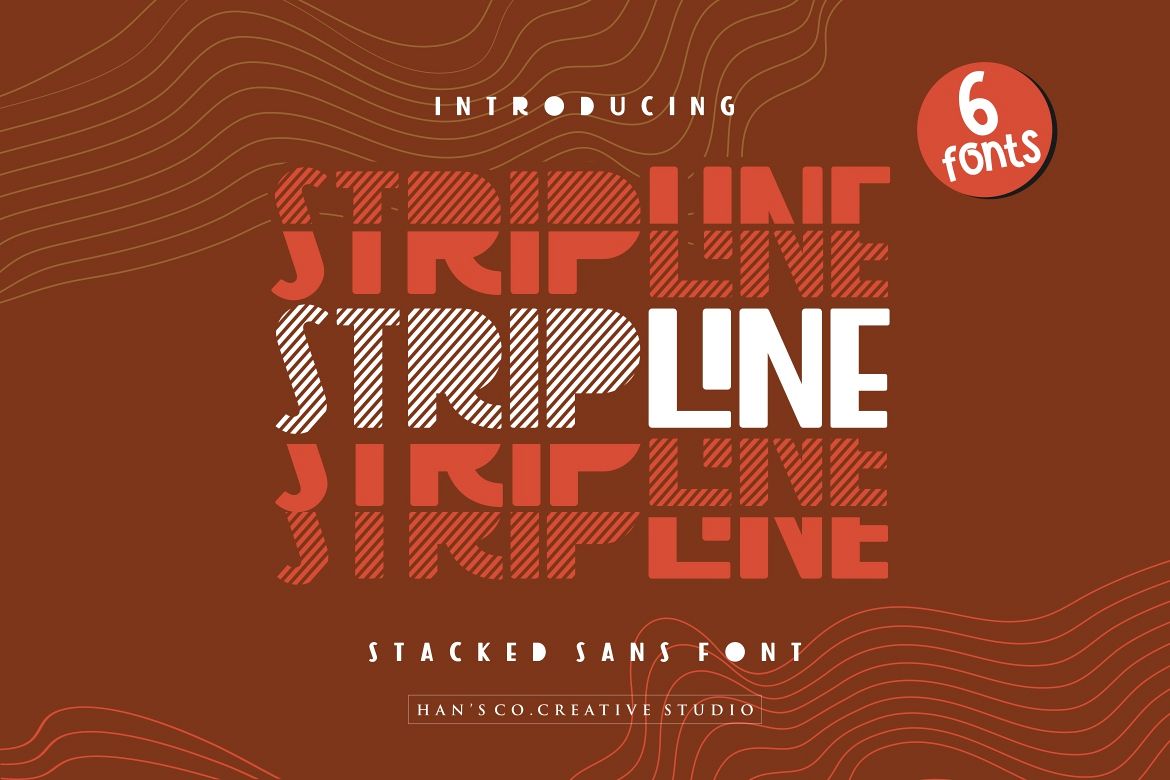
Strip Line Font
Strip Line is a modern striped and stacked fun sans serif font. This collection of sans serif is perfect for gift products like a shirts or greeting cards.
This font is divided into 6 parts of the stripe version, normal, top and bottom cuts so you can easily use it.